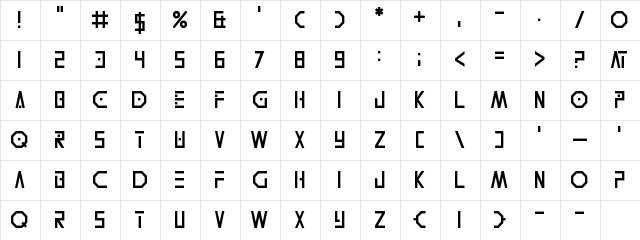
Neon Adventure Regular
| Designer | Darrell Flood |
Design Context for Neon Adventure Typeface
Neon Adventure has a distinctly futuristic character, with geometric precision and clean angles that feel at home in technology, gaming, and sci-fi contexts.